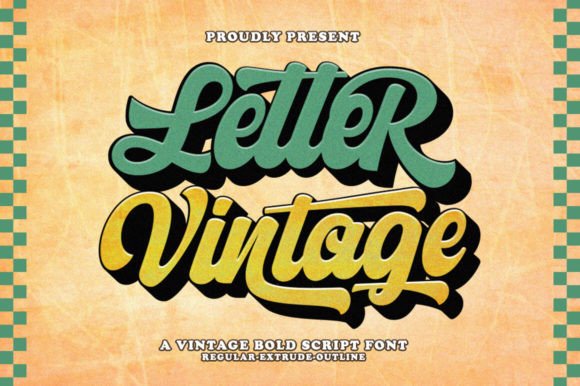
Introducing the Letter Vintage Font, a captivating and nostalgic choice for all your design needs! Created by the talented team at LetterFreshStudio, this font family is the epitome of vintage retro typography, inspired by the charming styles of the 70s and 80s.
Are you searching for the perfect font to add a touch of elegance to your wedding cards? Look no further! The Letter Vintage Font is the ideal choice for creating breathtakingly beautiful wedding invitations and announcements. Its graceful curves and ornate details will instantly elevate your designs, leaving a lasting impression on your guests.
But that's not all - this versatile font is not limited to wedding cards alone. Its bold typographic style makes it an excellent choice for a wide range of design projects. Whether you're working on badges, logos, t-shirts, posters, branding, packaging, signs, or book covers, the Letter Vintage Font will effortlessly bring a touch of nostalgia and sophistication to your creations.
Imagine the impact of incorporating this stunning font into your logo design. It will instantly transport your audience back to the golden era, evoking feelings of nostalgia and authenticity. Your brand will stand out from the crowd, leaving a lasting impression on potential customers.
Looking to add a vintage flair to your t-shirt designs? The Letter Vintage Font has got you covered. With its unique and captivating style, your t-shirts will become statement pieces, attracting attention and sparking conversations wherever you go. Stand out from the mundane and embrace the charm of the past with this remarkable font.
When it comes to packaging, the Letter Vintage Font is a game-changer. Its intricate details and timeless appeal will make your products irresistible. From cosmetics to gourmet treats, the vintage touch of this font will elevate your brand and captivate customers, ensuring a memorable unboxing experience.
Don't settle for ordinary designs when you can have extraordinary ones with the Letter Vintage Font. Let your creativity run wild and unleash the power of nostalgia in your projects. Embrace the beauty of the past and create designs that truly resonate with your audience.